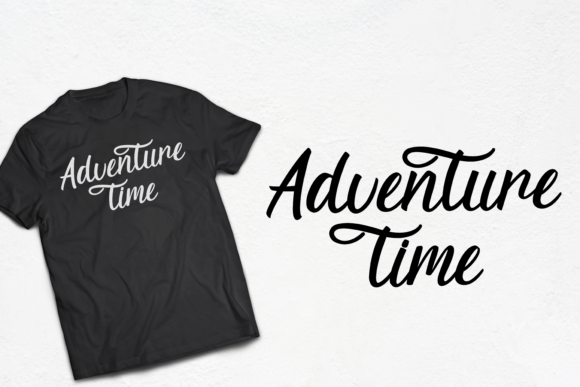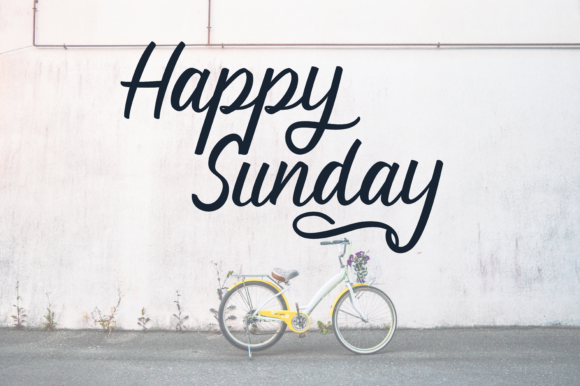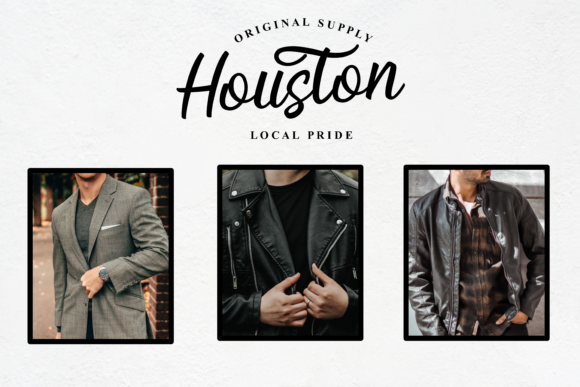
Introduction to Khageats Font
You’re in the zone, staring at your blank canvas, trying to bring your creative project to life. The words are flowing, but something’s missing – that perfect touch to make it truly unforgettable. That’s where the magic of typography comes in, and for many designers, the Khageats Font is the secret ingredient to elevate their designs.
With its authentic and unique charm, Khageats Font is more than just a typeface – it’s a design resource that can transform any project into a standout piece. Whether you’re working on a branding project, a digital illustration, or a creative campaign, this font is sure to add that extra layer of sophistication and style.
Key Features of Khageats Font
- Unique and creative design ideal for various creative projects, including digital art and graphic design.
- Transparent background option allowing for seamless integration into various design elements.
- Includes a range of font sizes and resolutions, including 72 dpi and 300 dpi, for versatility in various design applications.
- Designed to be highly legible and versatile, making it suitable for use in various creative contexts, from print to digital media.
Honest Review: Khageats Font
As a designer, I’m always on the lookout for high-quality design resources to elevate my creative projects. The Khageats Font has caught my attention, and I’m excited to share my thoughts on this free download.
What works well: ✨ The Khageats Font has a unique and modern aesthetic that’s perfect for digital designs, from social media graphics to web applications. The font is also highly customizable, making it a great addition to any design project.
- ✨ High-quality design: The Khageats Font is well-crafted and looks great on both light and dark backgrounds.
However, there are some limitations: ⚠️ The font may not be suitable for print designs due to its modern and digital-oriented design. Additionally, the font’s transparent background may not be ideal for designs with complex backgrounds.
Overall impression: The Khageats Font is a solid addition to any designer’s toolkit. While it may have some limitations, its unique design and high-quality construction make it a valuable resource for digital designers.
Use the Khageats Font in conjunction with a transparent background for a clean and modern look. Experiment with different font sizes and styles to create visually appealing designs. This font is a great design resource for creative projects, so don’t hesitate to try it out!
The Khageats Font is perfect for a variety of creative projects, including social media graphics, posters, presentations, logo designs, infographics, brochures, reports, and documents. Its high-quality design and transparent background make it a versatile design resource.